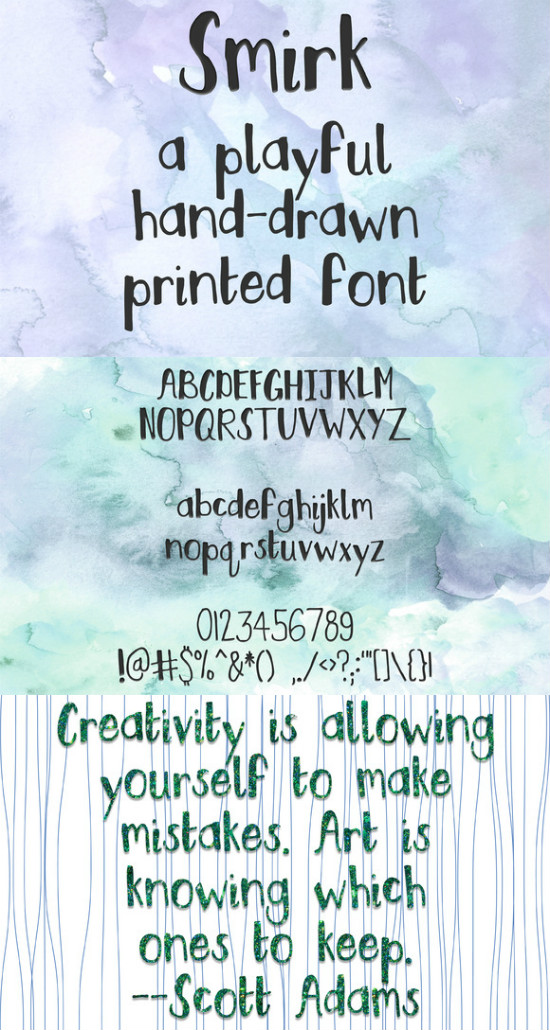
Smirk – Handwritten Font
This font is a true type font (TTF) that includes uppercase, lowercase, and numbers & punctuation. It is hand-written, bold, and playful. Instant download includes a .zip file with licensing info and one .ttf file.